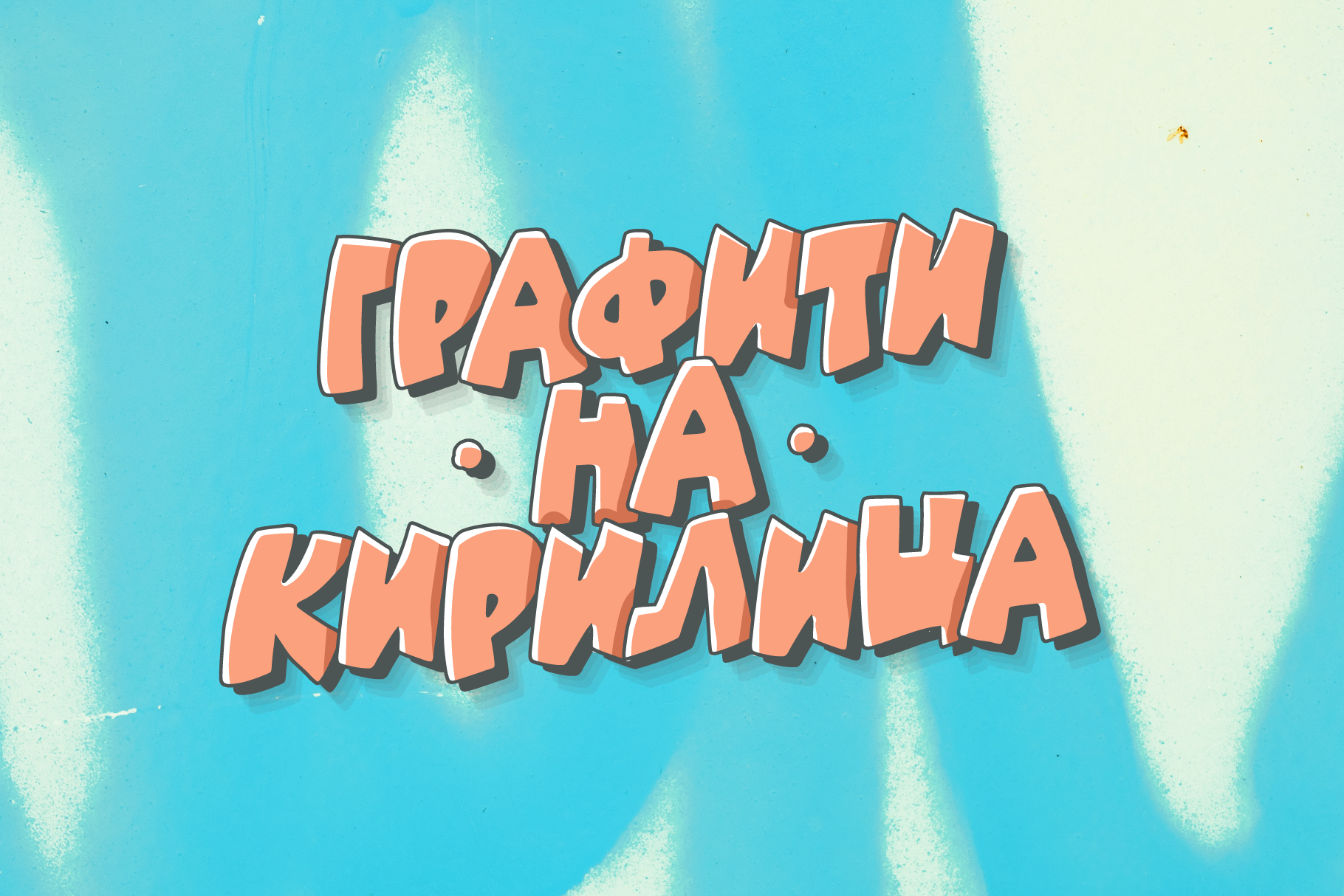
Cyrillic Graffiti Font
Bold and Outline Graffiti font with Cyrillic support.
Write your own color graffiti / easy to edit
Great for posters, logos, packaging, invitations, websites, T-Shirts, and more.